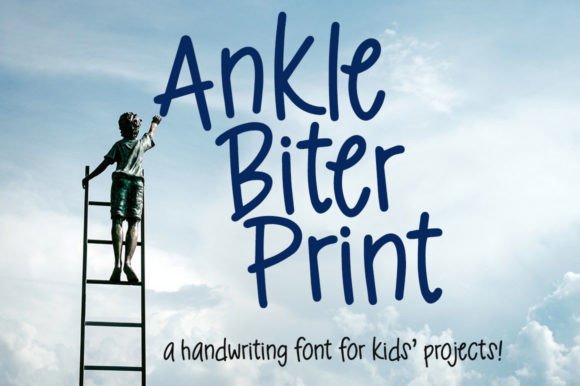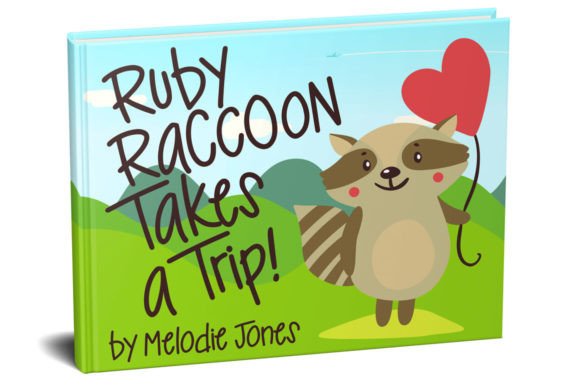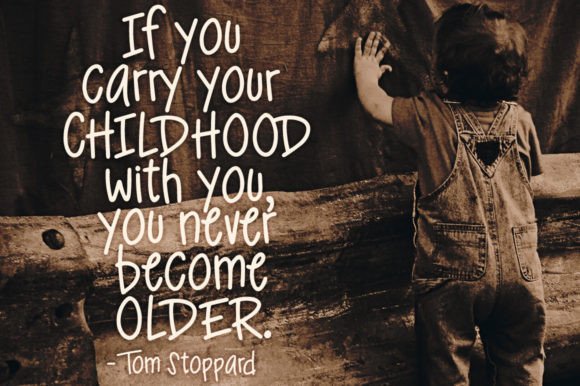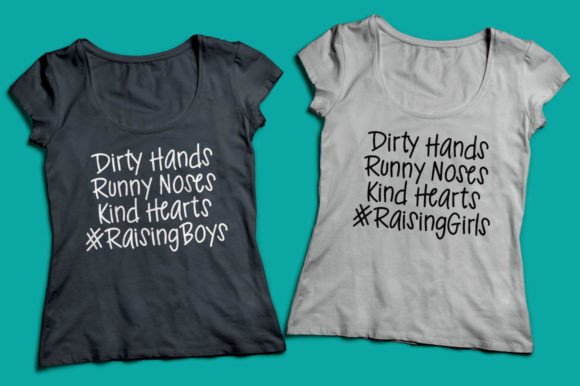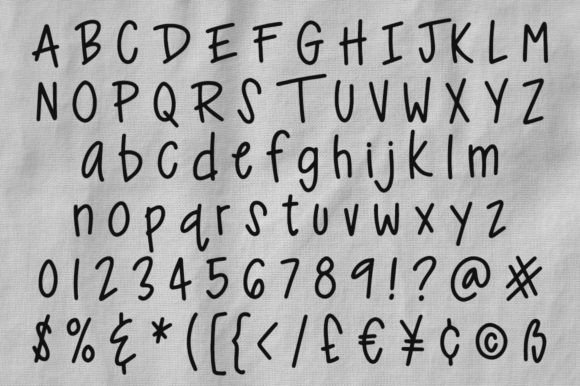
Ankle Biter Print Font
About Ankle Biter Print Font
Ankle Biter Print is a delightful and versatile font designed to add a whimsical touch to all your projects geared towards children. Crafted with a smooth and evenly-weighted style, this font is perfect for creating visually appealing designs for various applications, such as water bottles for boys or T-shirts for girls. With its fun and hand-lettered look, Ankle Biter Print brings a playful charm to your creative endeavors.
Available in both OTF and TTF file formats, Ankle Biter Print ensures compatibility with a wide range of design software. The font includes a comprehensive character set, covering uppercase and lowercase letters (A-Z, a-z), numerals (0-9), and an assortment of punctuation marks. This extensive character set allows for creative flexibility, enabling you to craft engaging and expressive designs for children of all ages.
To further enhance its usability, Ankle Biter Print provides over 300 extended Latin characters, facilitating language support for a diverse range of projects. This makes the font suitable for not only English but also various other languages, catering to a global audience and expanding its applicability in international design contexts.
Whether you are working on digital designs or print materials, Ankle Biter Print is designed to meet your creative needs. Its versatility makes it suitable for a wide array of projects, ranging from children’s books and educational materials to party invitations and clothing designs. The font’s adaptability is a testament to its thoughtful design, making it a valuable asset for designers seeking a reliable and visually appealing typeface for child-centric applications.
In conclusion, Ankle Biter Print is not just a font; it’s a creative tool that empowers designers to infuse their projects with a playful and engaging aesthetic. With its smooth and even letterforms, extensive character set, language support, and PUA encoding, Ankle Biter Print stands as a delightful choice for bringing a touch of joy to your designs for the younger audience.